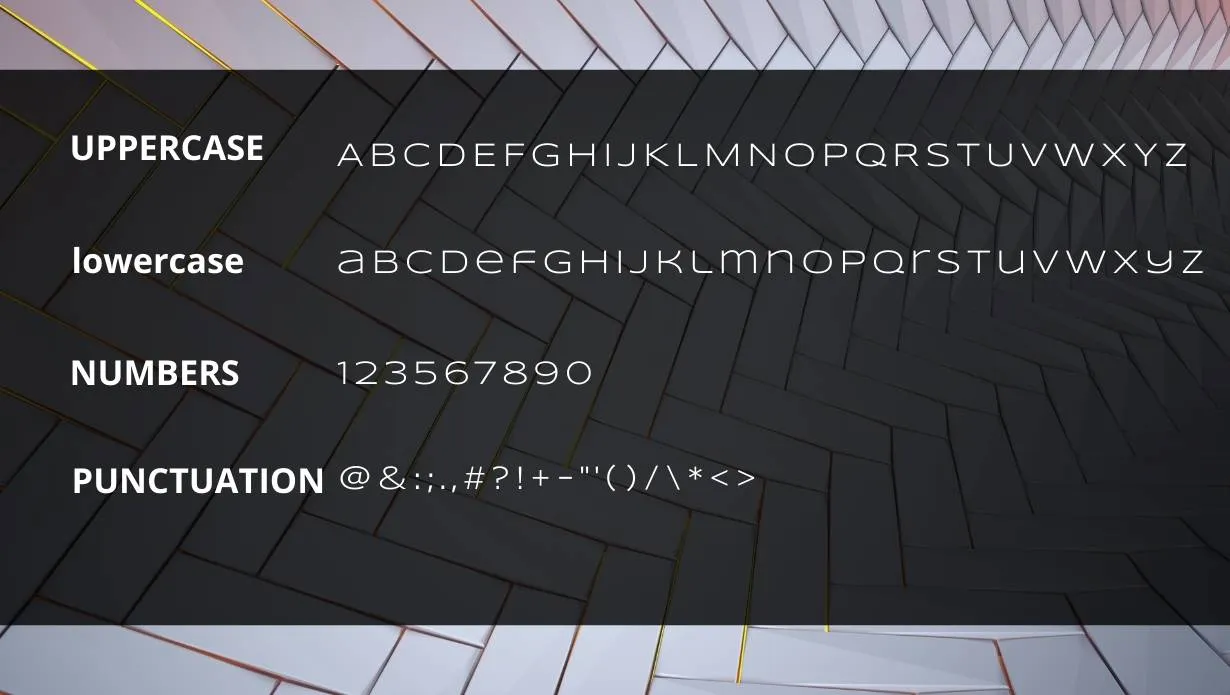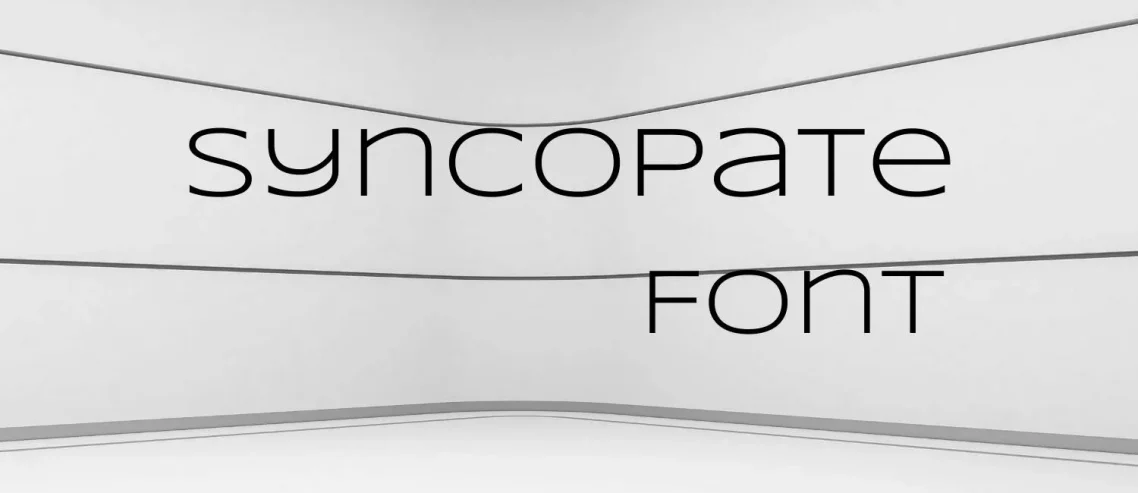
Syncopate Font is a display typeface with long and thin letterforms. The face has been designed by Eric Gill for the London-based printing company, Monotype. First appearing in the early 1920s, Syncopate was released as a metal typeface in 1925.
Syncopate has been used in a variety of contexts, from corporate branding to movie posters. Its unique letterforms make it a popular choice for designers looking to add a touch of personality to their work.
Syncopate Font Info
| Name | Syncopate Font |
| Designer | Eric Gill |
| Style | Display |
- Syncopate Regular
View of Syncopate Font